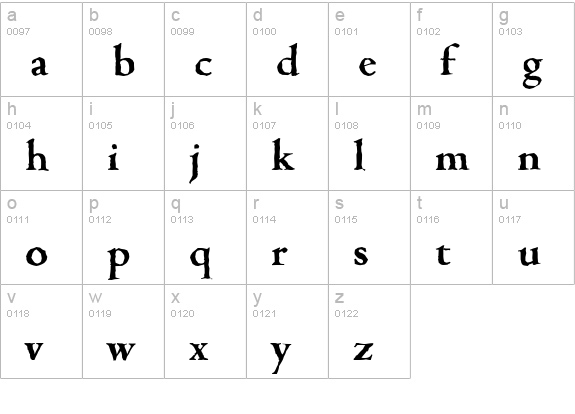
CambridgeAntique-Bold Font Details
CambridgeAntique-Bold is a strong, high-contrast variant in the CambridgeAntique typeface family \xE2\x80\x94 well suited to headlines, attention-grabbing titles, and strong calls-to-action.
CambridgeAntique-Bold is a stunning vintage-inspired font that exudes elegance and sophistication. Its timeless appeal makes it the perfect choice for adding a touch of classic charm to your designs. With its bold and distinctive letterforms, CambridgeAntique-Bold commands attention and brings a sense of grandeur to any project. This versatile font is ideal for a wide range of design applications, from branding and packaging to invitations and signage. Whether you're creating a vintage-themed wedding invitation or a classic logo design, CambridgeAntique-Bold is sure to make a statement. Best of all, CambridgeAntique-Bold is available for free download at FontsMarket.com. So why wait? Add this beautiful font to your collection today and elevate your designs to the next level.